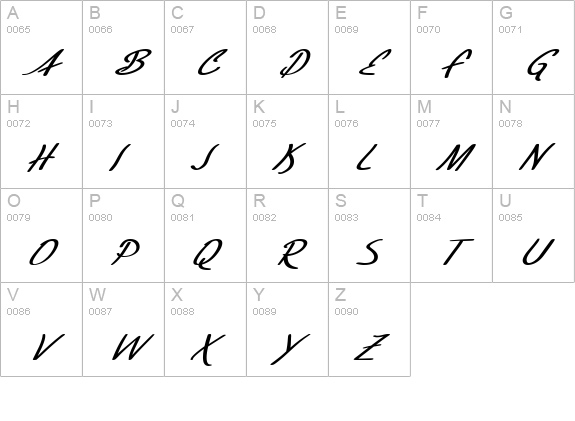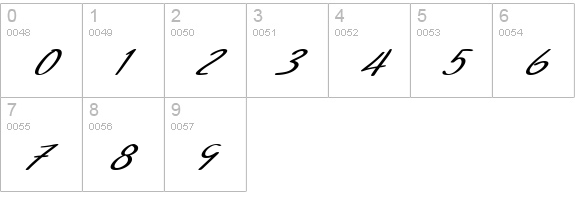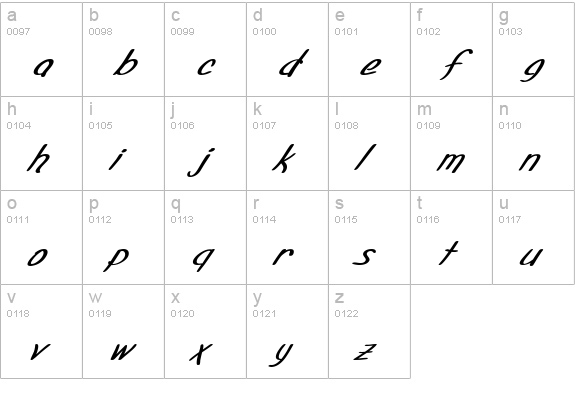
SF Foxboro Script Extended Bold Italic Font Details
SF Foxboro Script Extended Bold Italic is a strong, high-contrast, extended-width, italic variant in the SF typeface family \xE2\x80\x94 well suited to headlines, attention-grabbing titles, and strong calls-to-action.
SF Foxboro Script Extended Bold Italic is a stunning and versatile font that exudes elegance and sophistication. Its bold and italic design adds a touch of uniqueness, making it perfect for various design projects. Whether you're creating eye-catching headlines, stylish logos, or elegant invitations, this font will elevate your designs to a whole new level. With its extended characters and graceful curves, SF Foxboro Script Extended Bold Italic captures attention effortlessly. The letters flow seamlessly, creating a harmonious and visually pleasing composition. Its bold weight adds a sense of confidence and strength, while the italic style adds a touch of flair and creativity. This font is incredibly flexible and can be used in a wide range of design applications. From fashion and beauty to luxury and lifestyle, SF Foxboro Script Extended Bold Italic will enhance any project with its sophisticated charm. It is also perfect for branding projects, giving your logo a refined and polished look. One of the best things about SF Foxboro Script Extended Bold Italic is that it is freely available to download at FontsMarket.com. This means that you can effortlessly add this stunning font to your collection without any cost. Whether you're a professional designer or a hobbyist, this font gives you the opportunity to create beautiful and impactful designs without breaking the bank. So, why wait? Download SF Foxboro Script Extended Bold Italic today and unleash your creativity. With its elegant and bold design, this font will captivate your audience and elevate your designs to new heights. Let SF Foxboro Script Extended Bold Italic be the secret weapon in your design arsenal, making every project a true masterpiece.